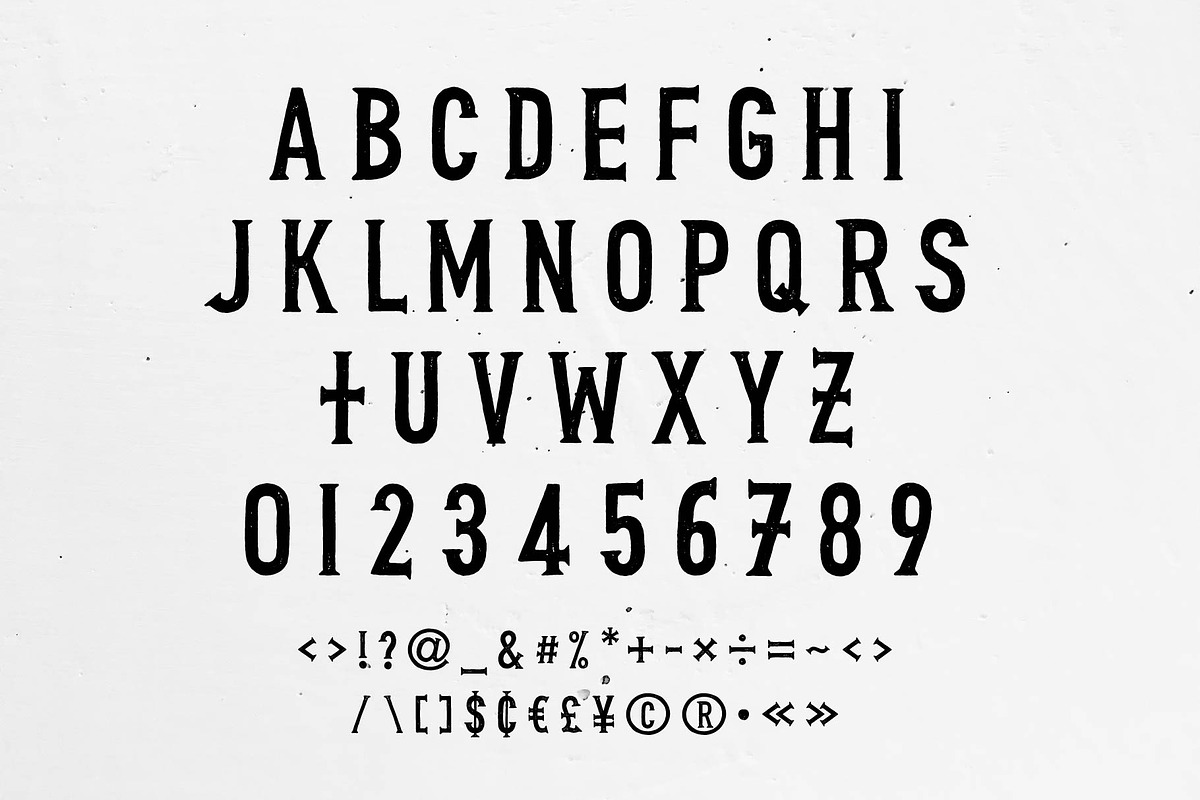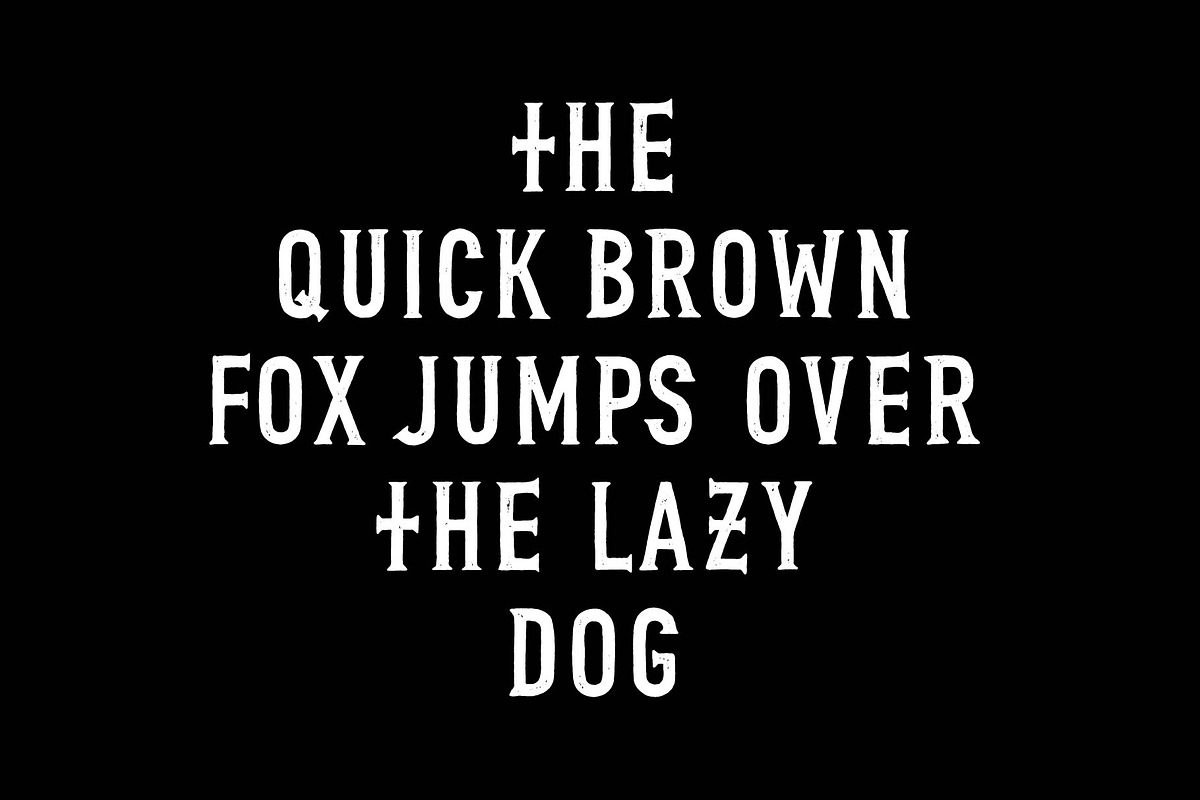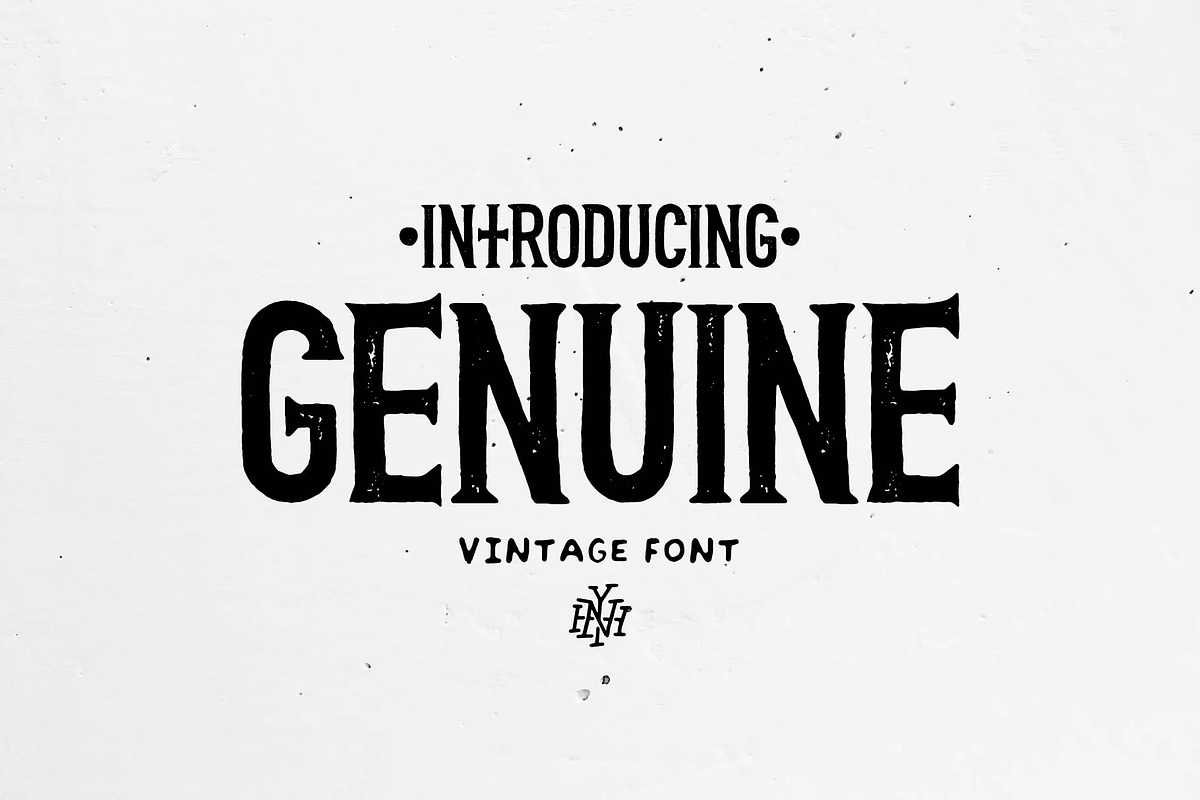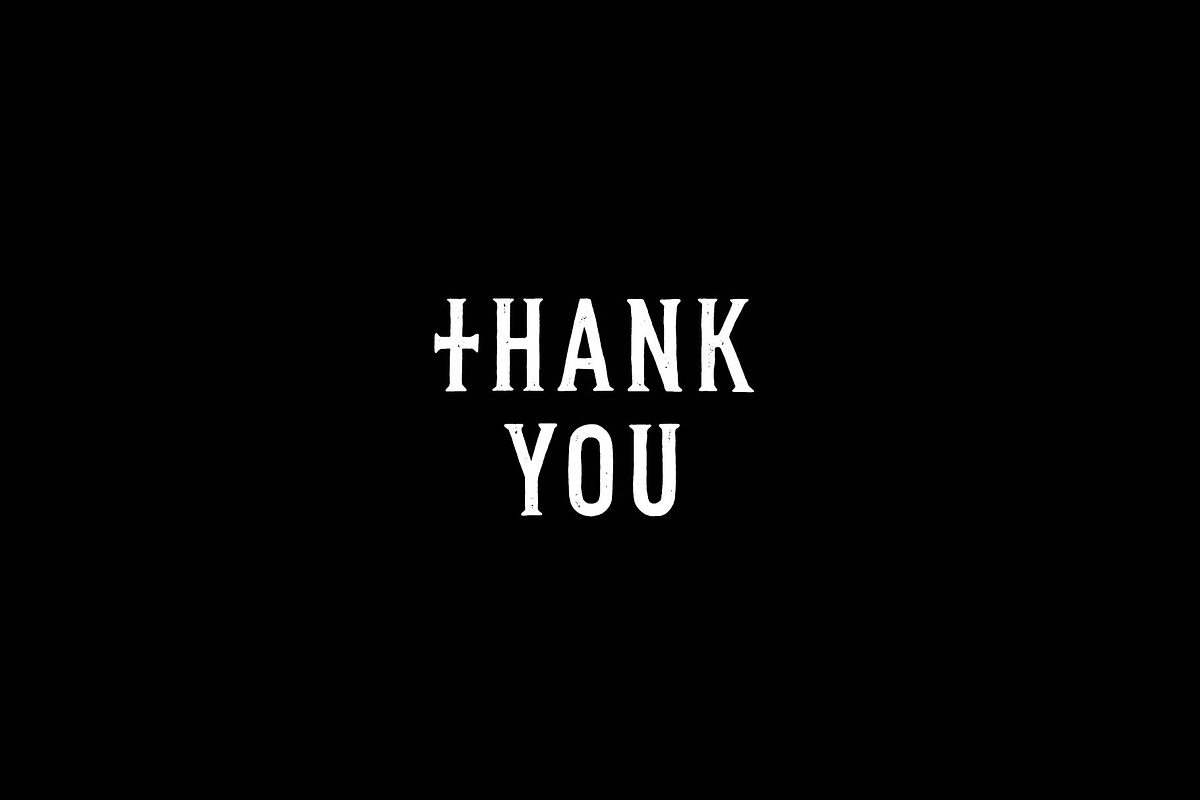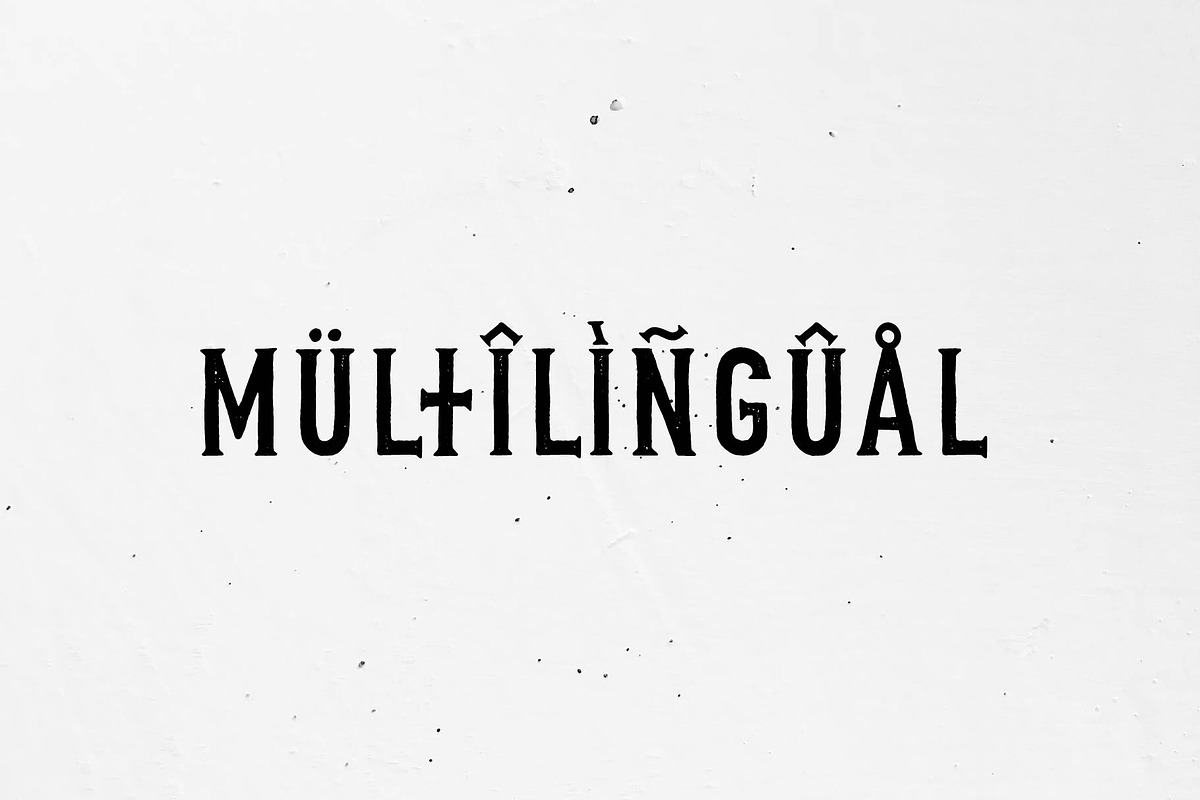
Genuine | Vintage font
Introducing Genuine
Genuine is an all caps decorative vintage font. It is perfect for:
- Logos
- Posters
- Labels
- Headlines
- Apparel
- & more
It comes with characters, numbers, marks and punctuation.